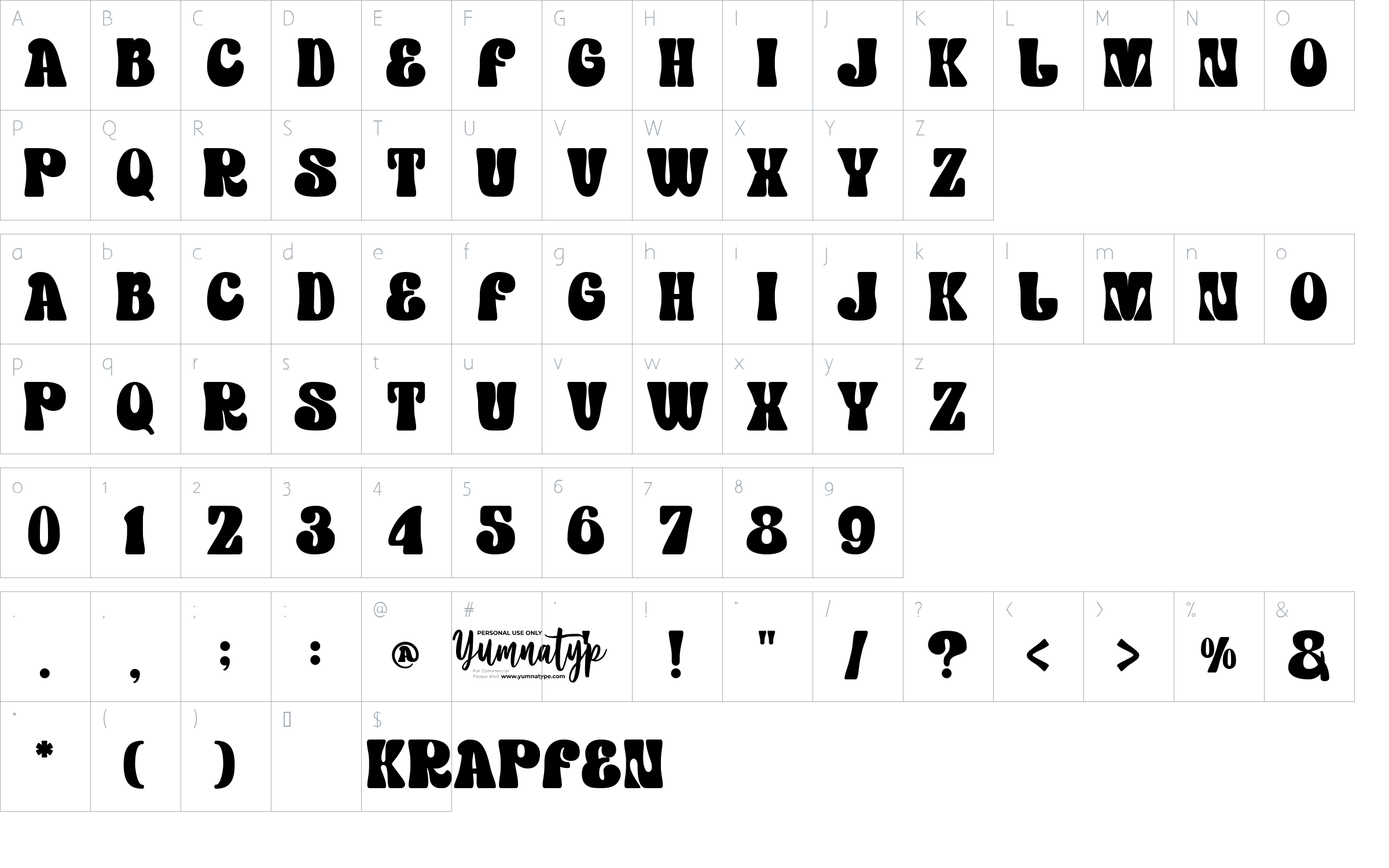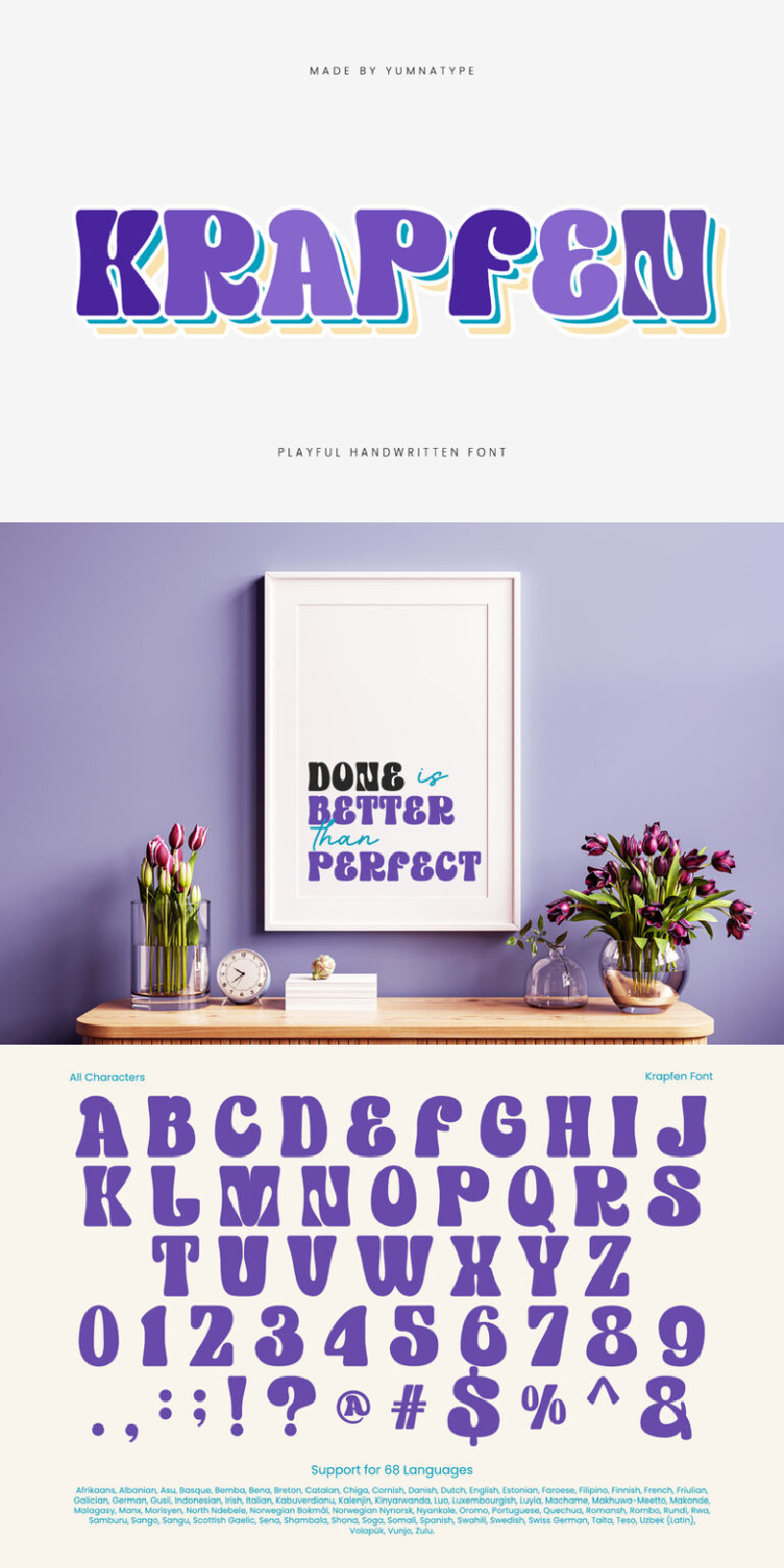
Krapfen Font
About Krapfen
Krapfen is a playful handwritten font designed in uppercase with a very thick weight and quite visible contrast. The rounded shapes give it a friendly and inviting look. Its thick, rounded letters and notable contrast make it an excellent choice for projects that need a mix of playfulness and impact, ensuring your message is both memorable and engaging. In addition, enjoy the features here.
Krapfen fits in headlines, logos, posters, flyers, branding materials, print media, editorial layouts, and many more designs. Find out more ways to use this font by taking a look at the font preview.